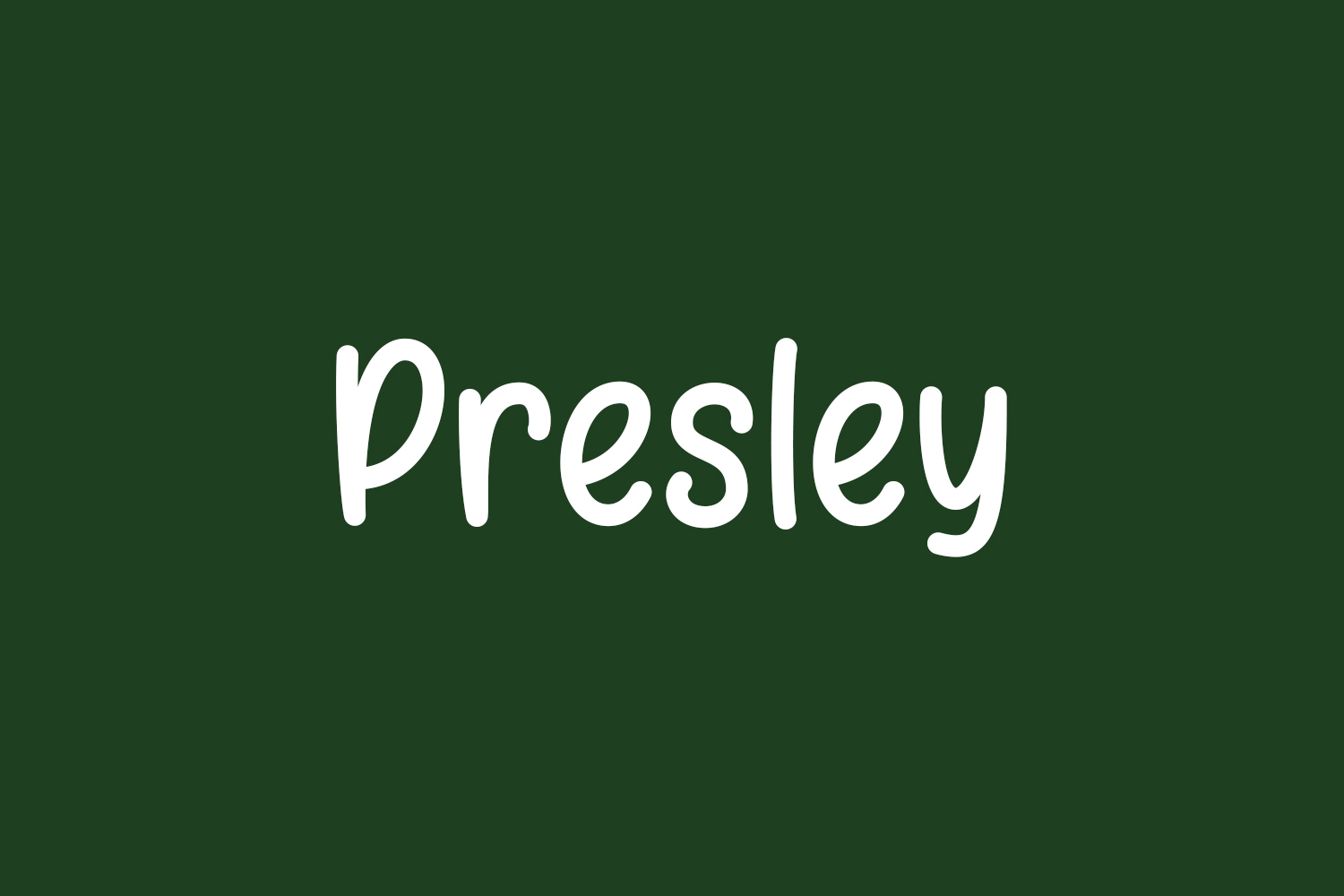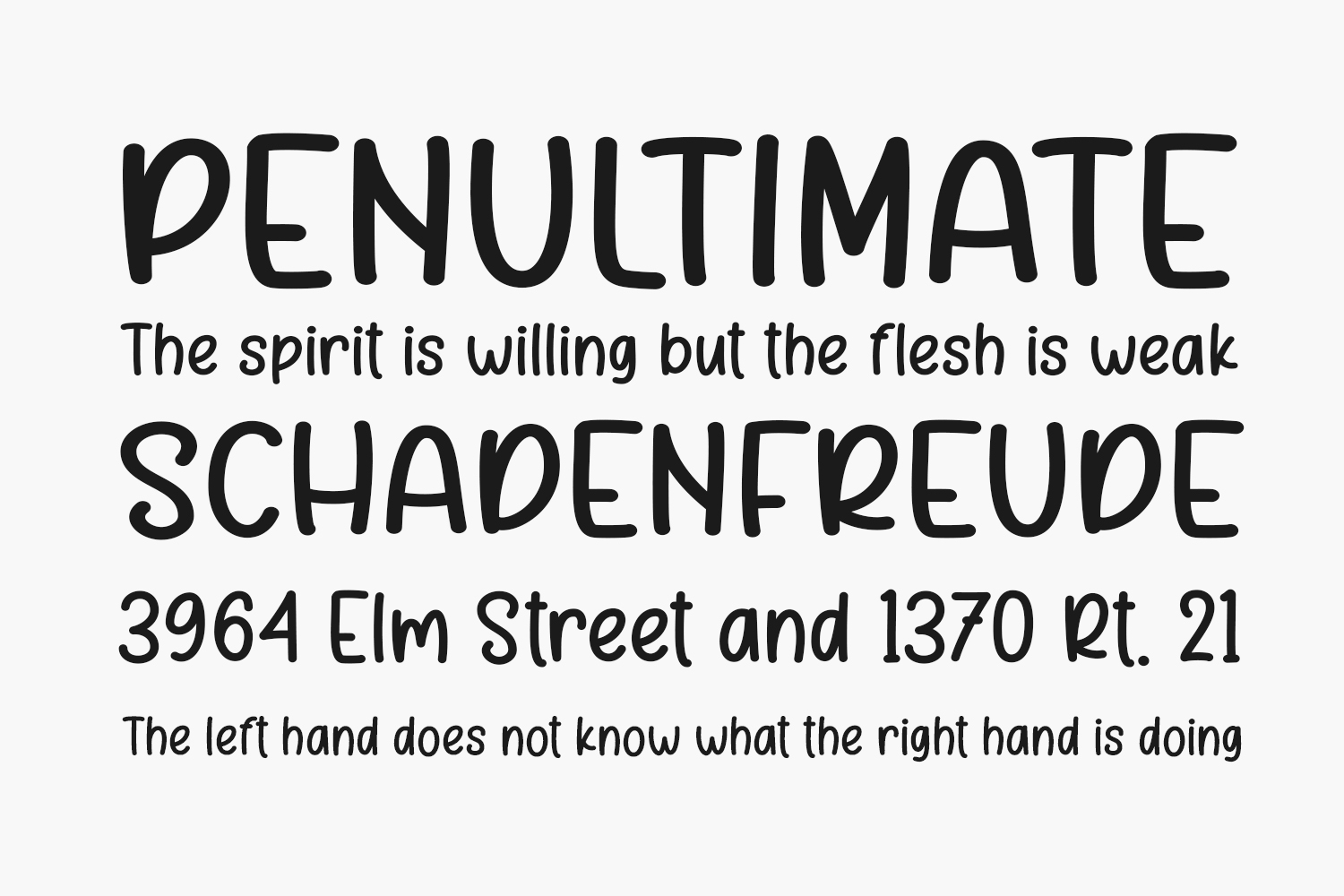
Presley Free Font is a dainty and flowing handwritten font. Sweet and delicate, this font will be ideal for writing wedding invitations, cards or any other design that may need a romantic, personalized touch. Presley Free Font is free for personal use only. Please purchase the full version for commercial use.
Designed by Nirmala Creative